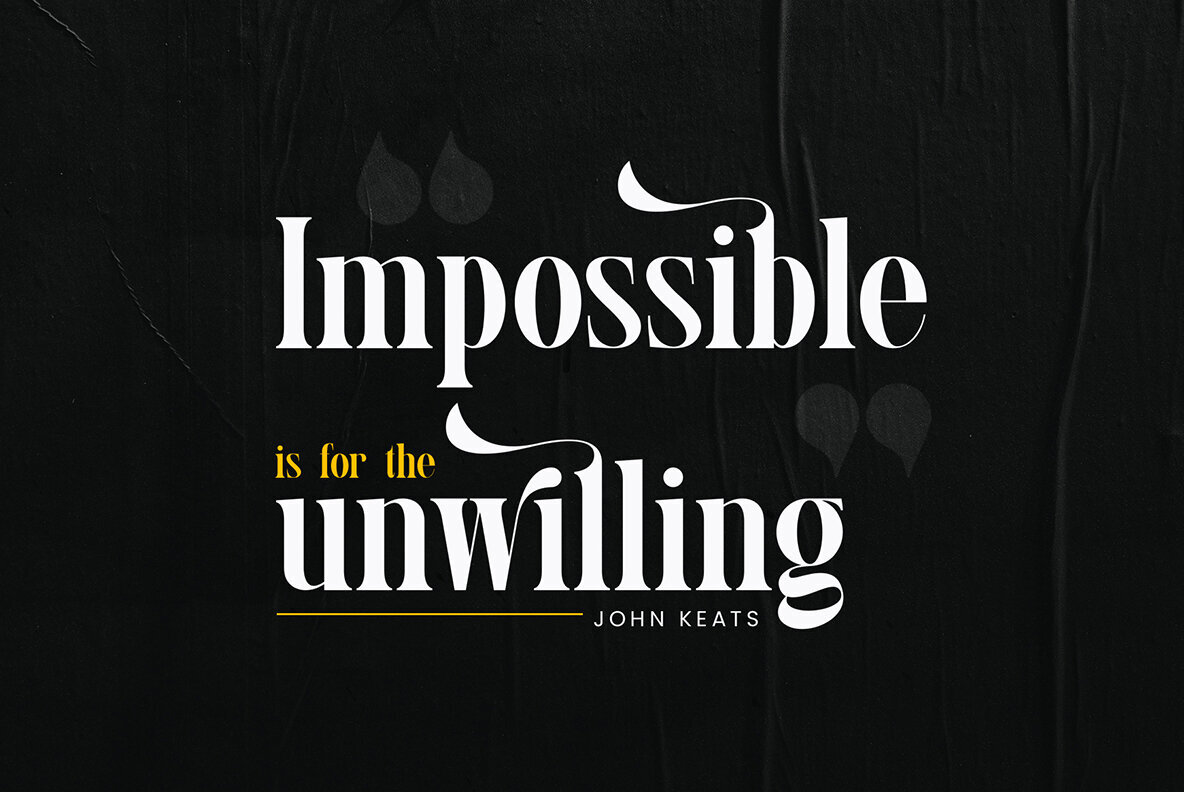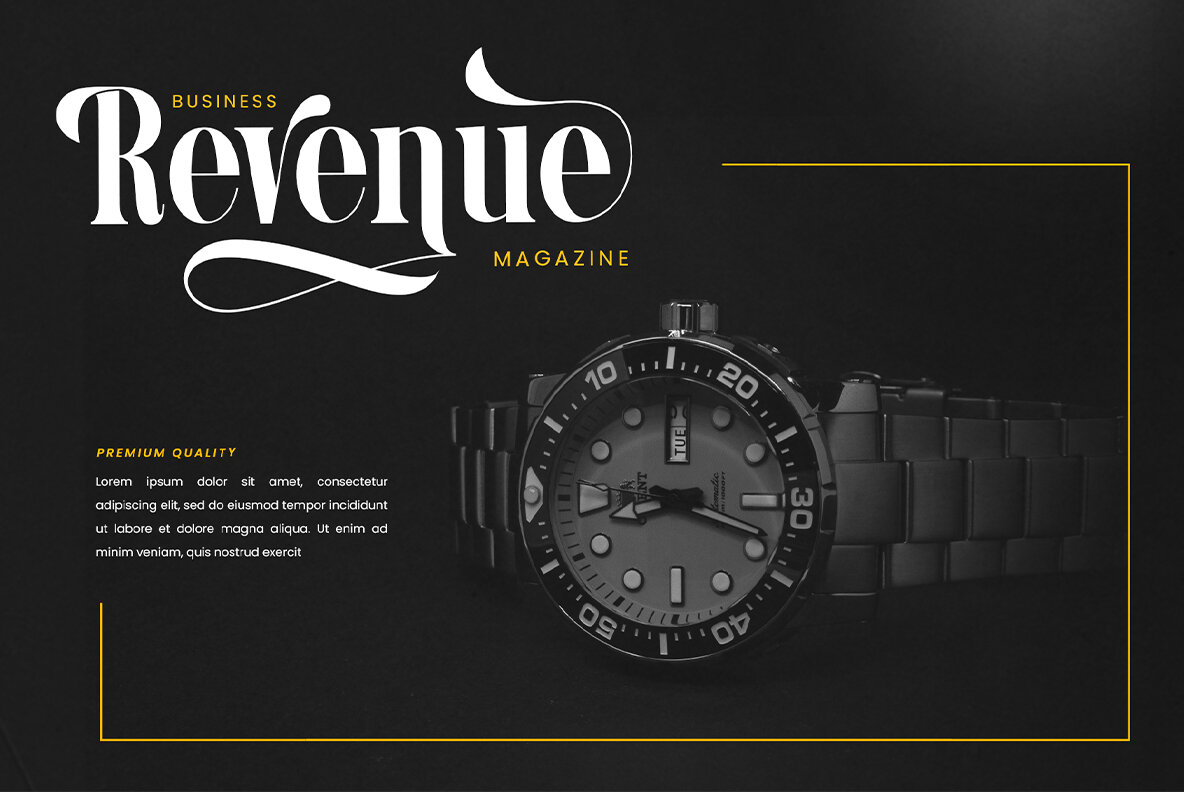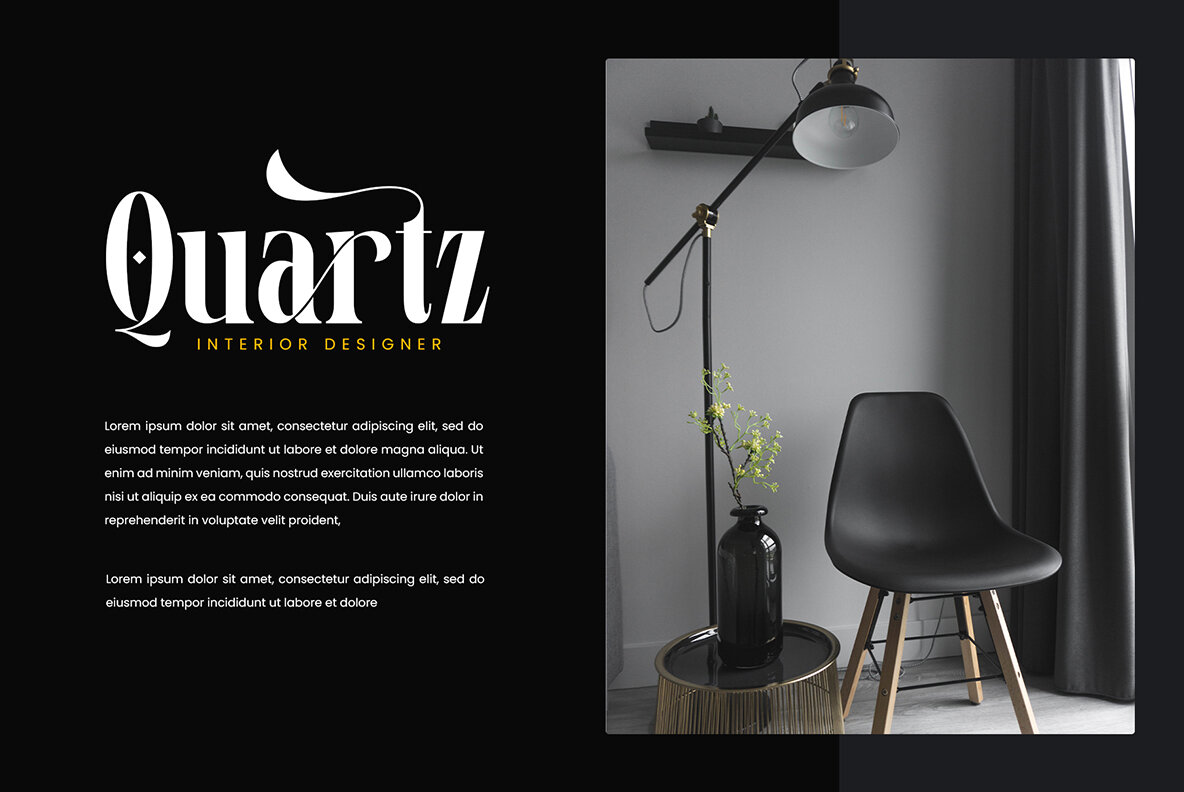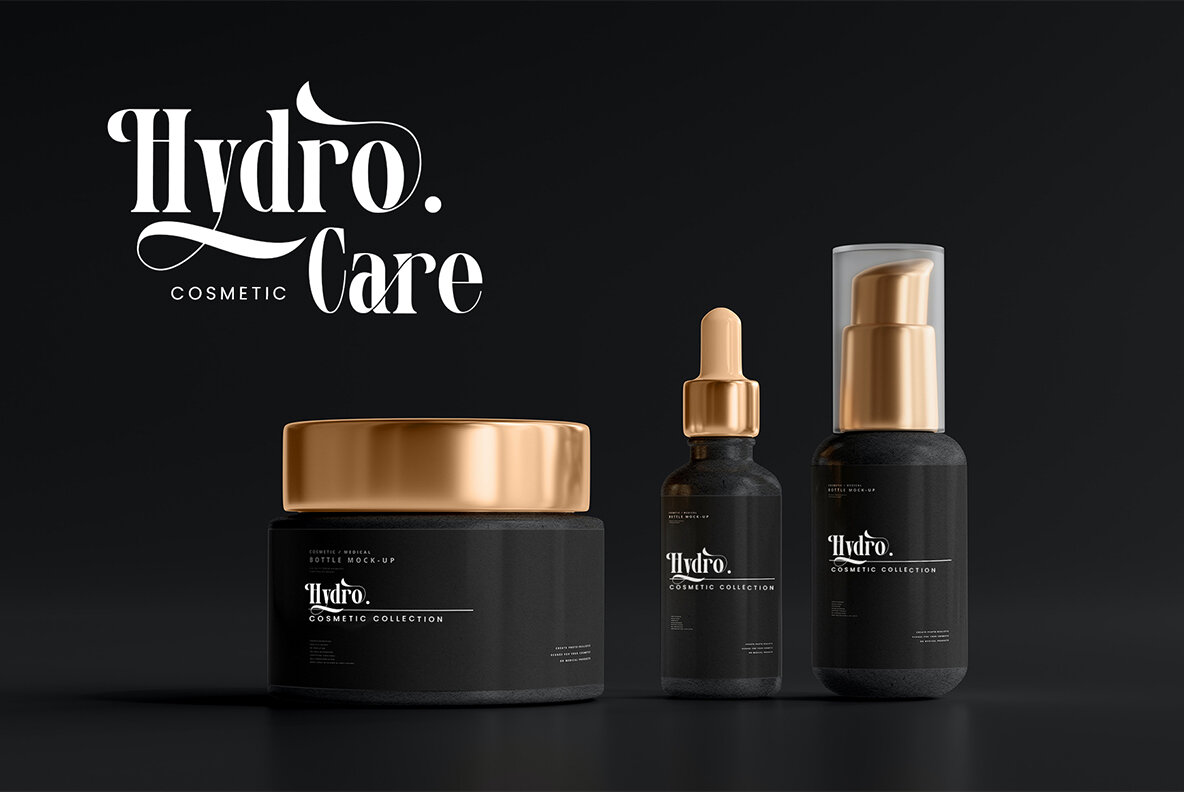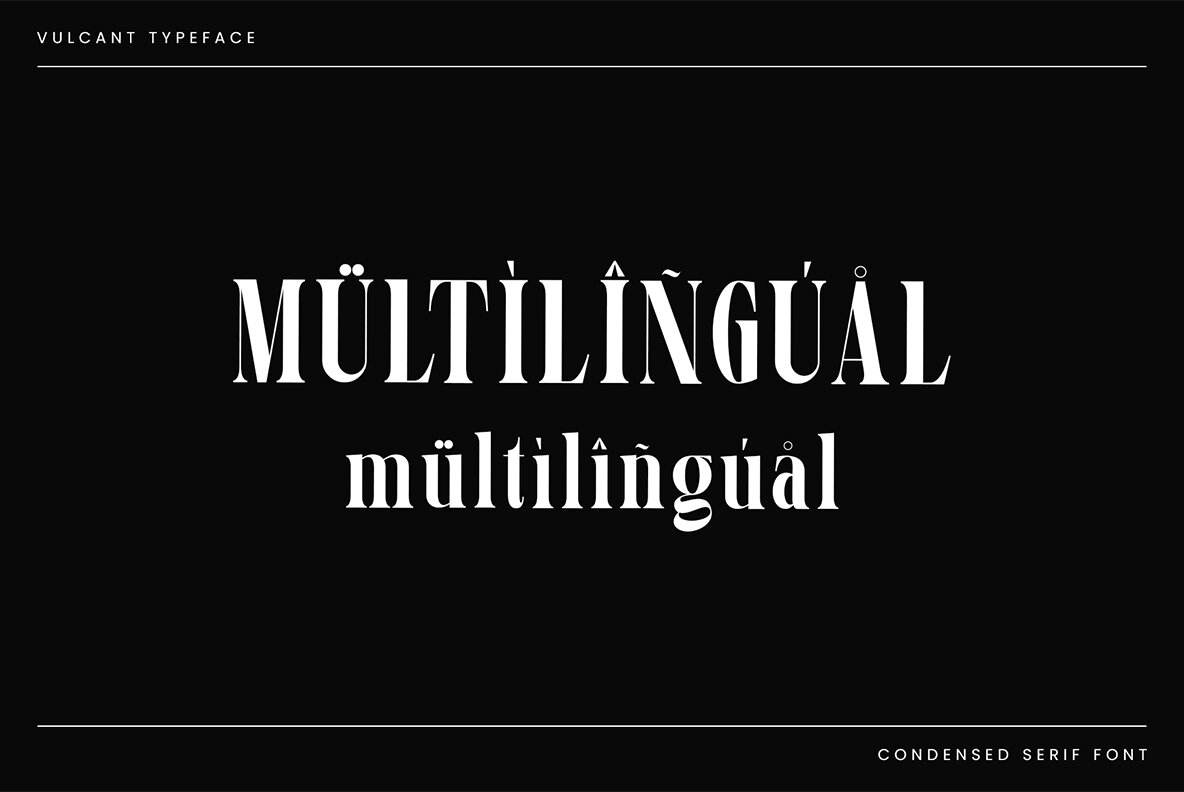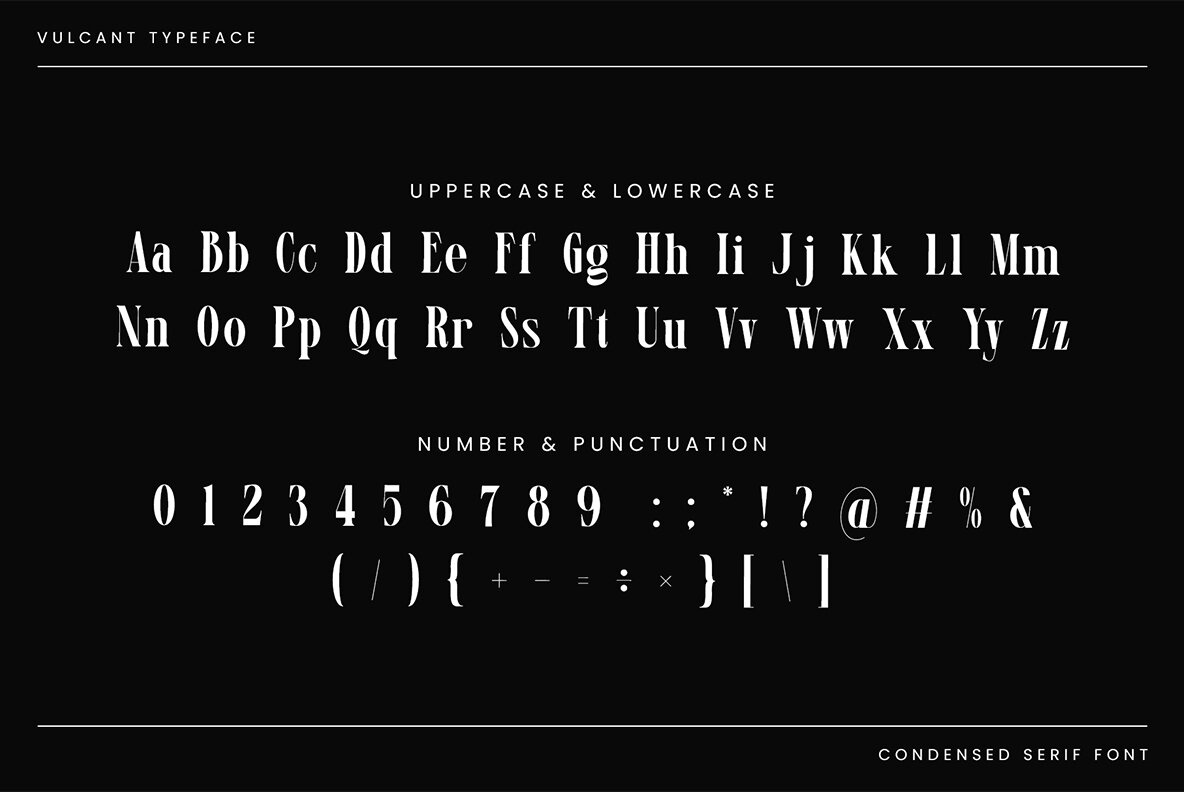
Vulcant Font
Vulcant
The Vulcant condensed serif is crafted to bring elegance and style to any design. Characterized by balanced, smooth lines, this font is ideal for a wide range of applications, including invitation cards, company logos, movie titles, business cards, book titles, and brand names. Its subtle serif details and sophisticated design make Vulcant a versatile choice for any project.Vulcant: Elegant and Stylish Condensed Serif